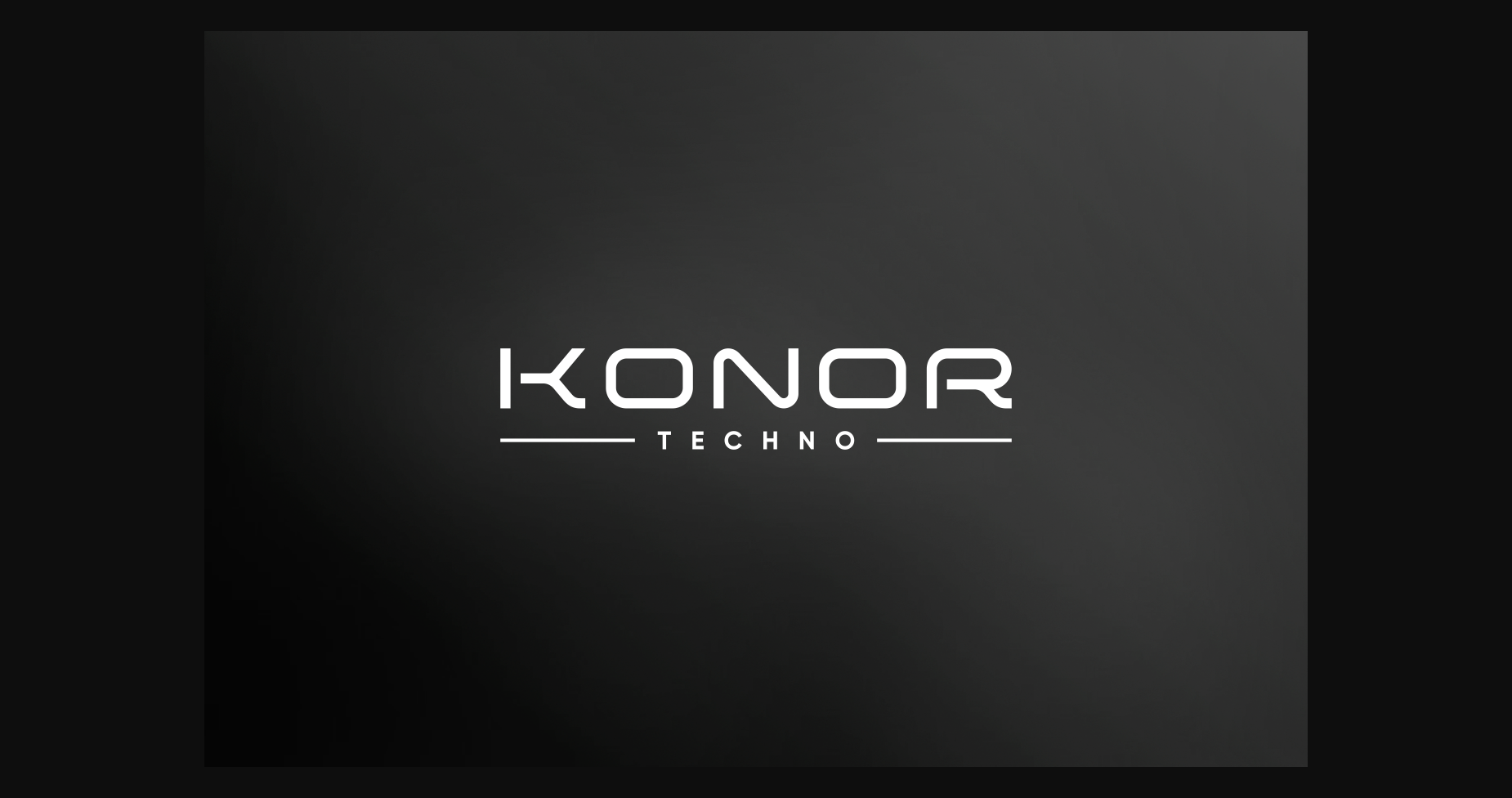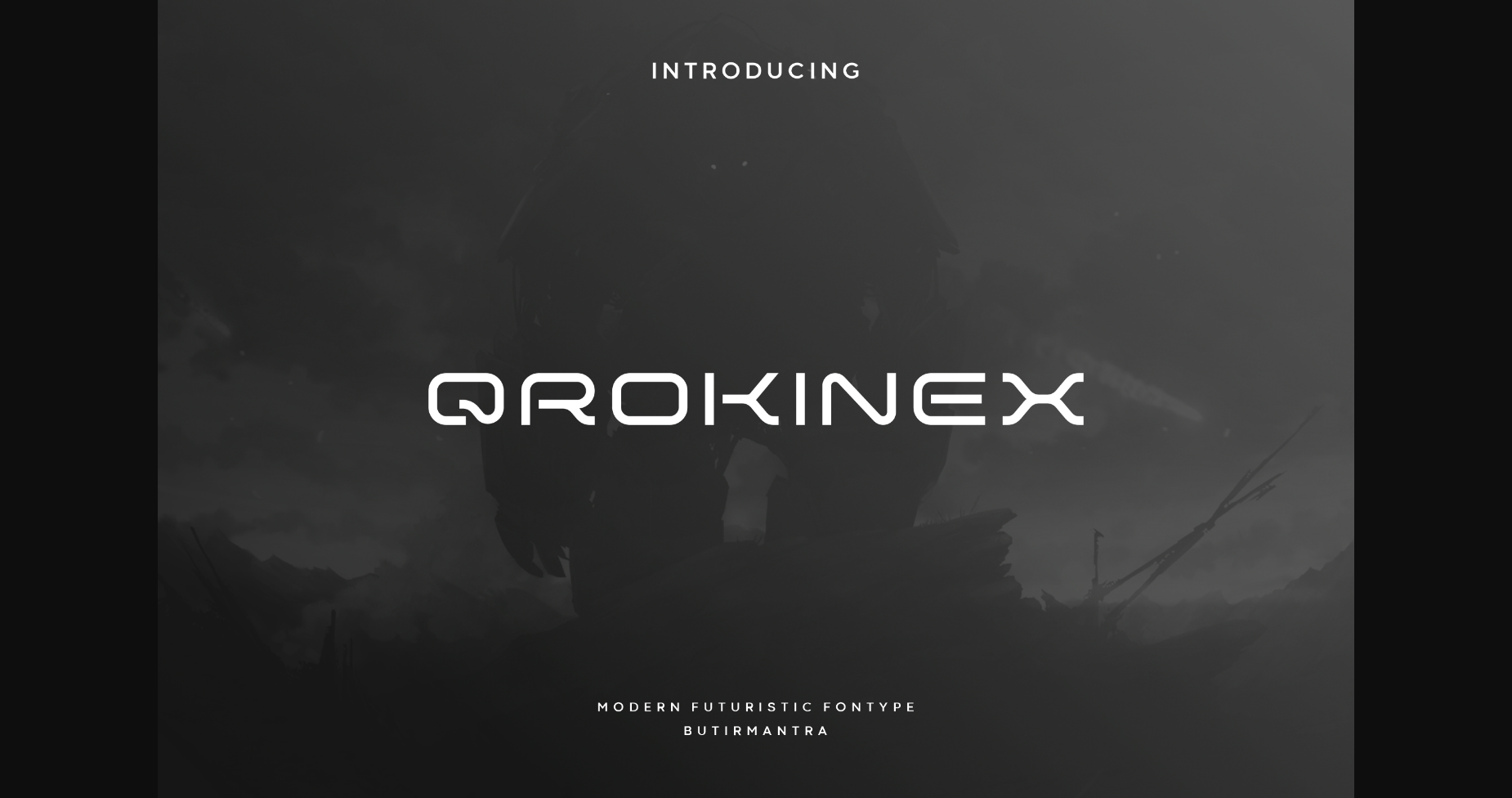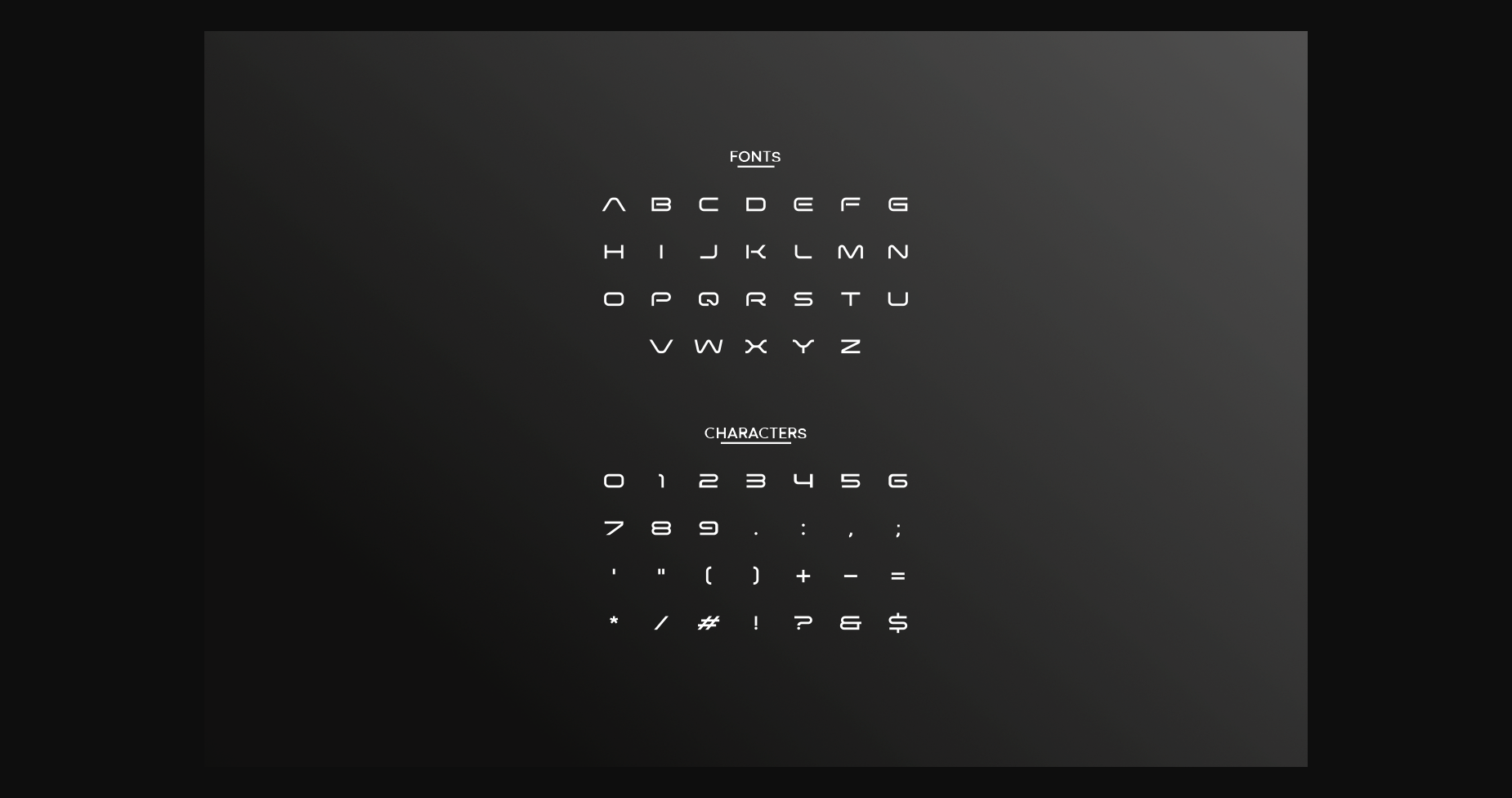
About Qrokinex Font
Qrokinex is a modern, elegant and futuristic look font. This font would be ideal for writing web designs, business cards, or just about anything else that requires a unique touch. With a sophisticated concept and very elegant shape that will look modern on future technology designs, It’s will be great on logo and many more.